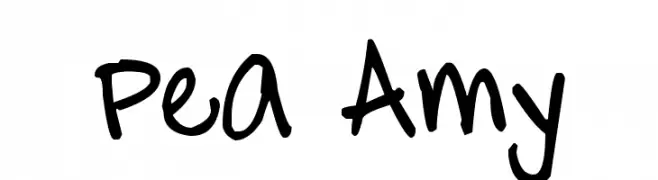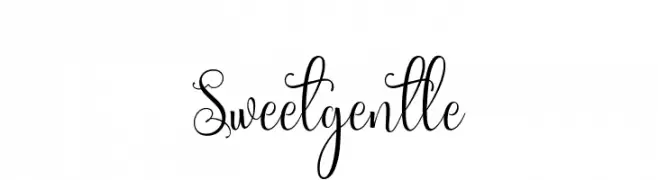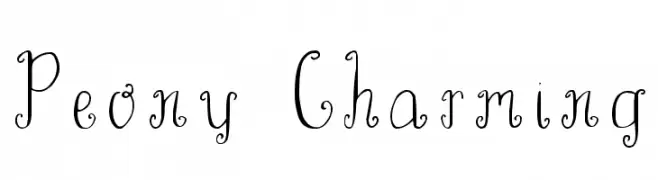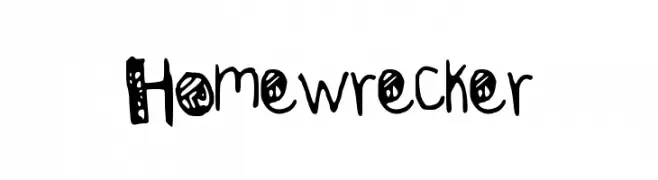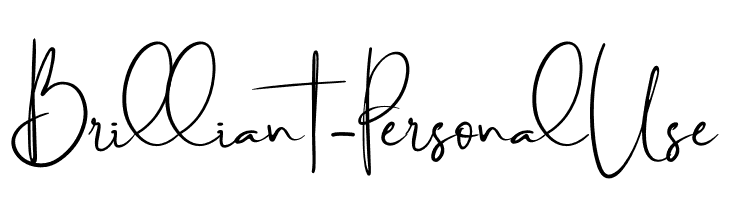
A playful, casual handwritten font with uneven strokes and a friendly vibe.
( Fonts by fontdroe )
An elegant and whimsical script font with decorative swirls and flowing letters.
( joellecharming.com )
A whimsical, curly serif font with playful swirls and loops.
A playful, hand-drawn font with a spooky, rustic style.
( dcoxy - Greg Medina - www.dcoxy.com/ )
A bold, decorative script font with intricate loops and flowing strokes.